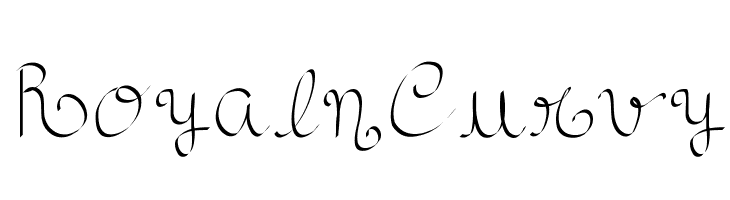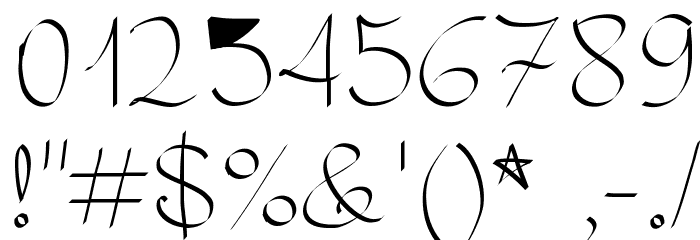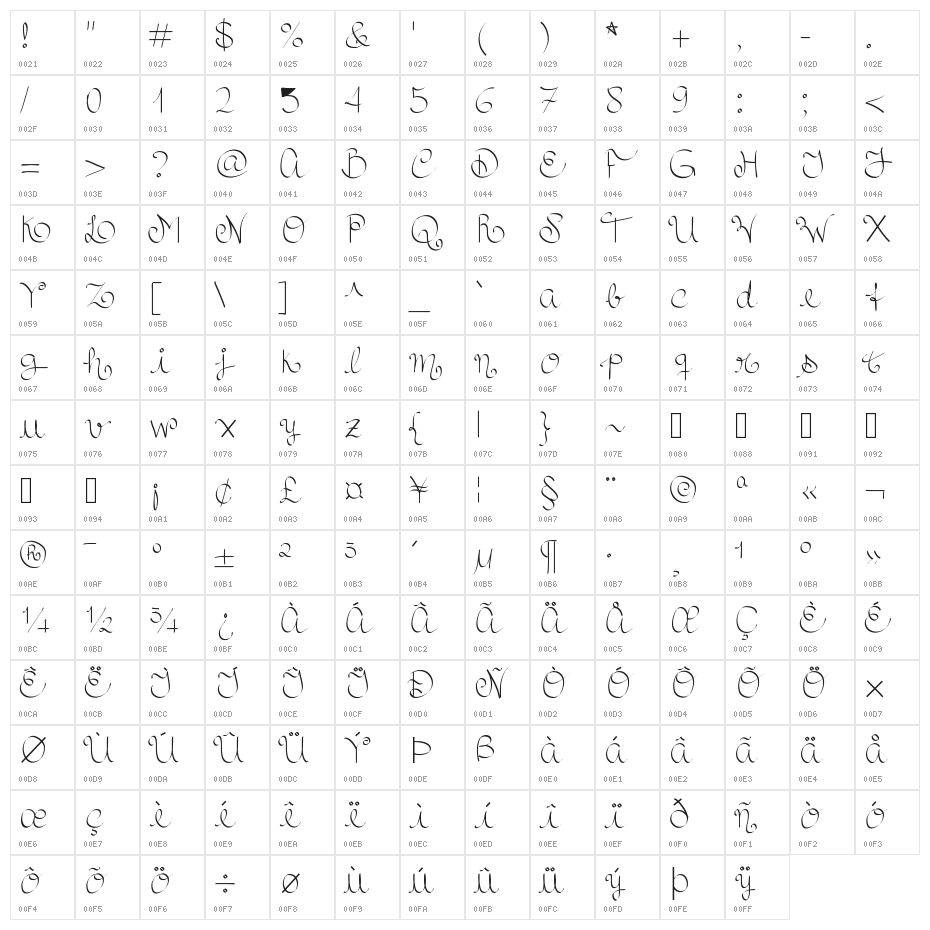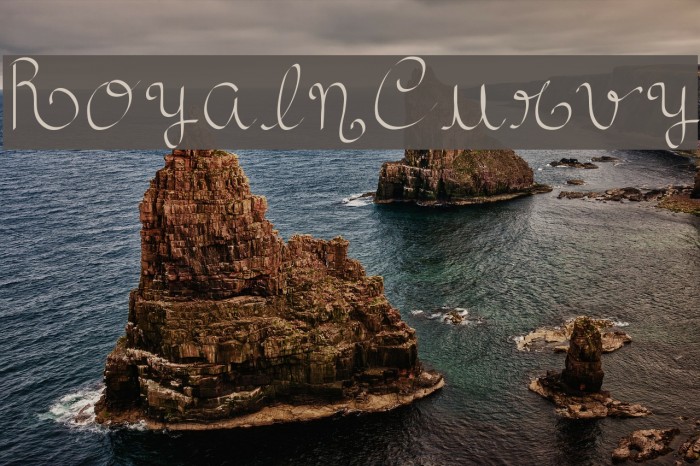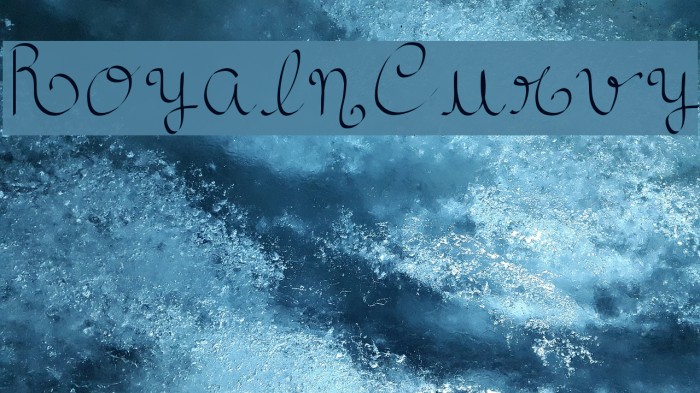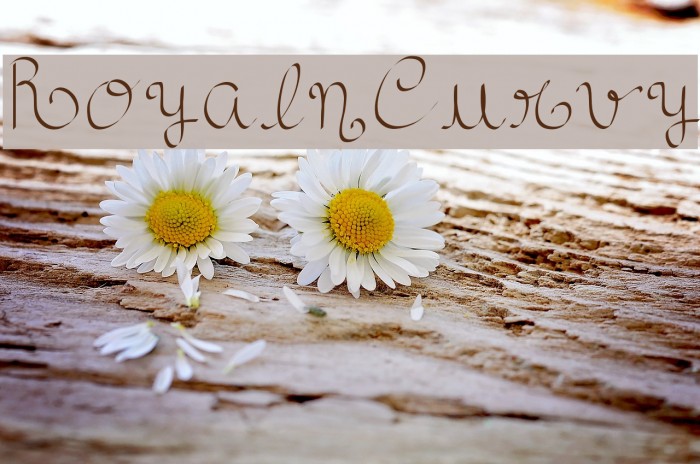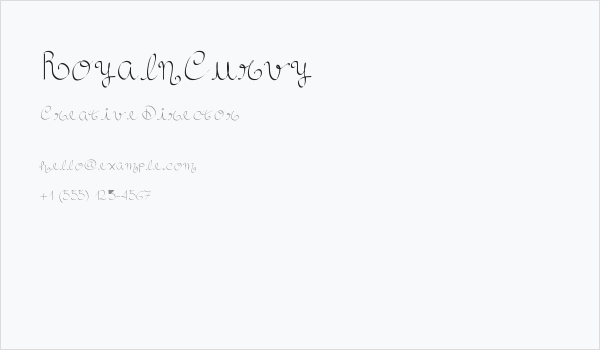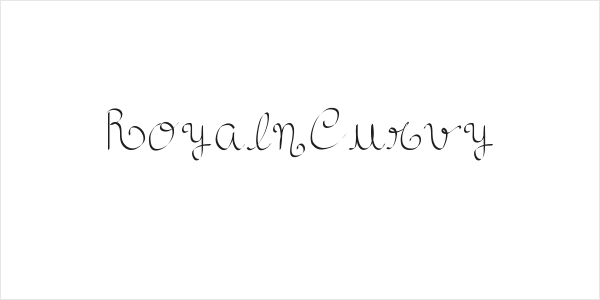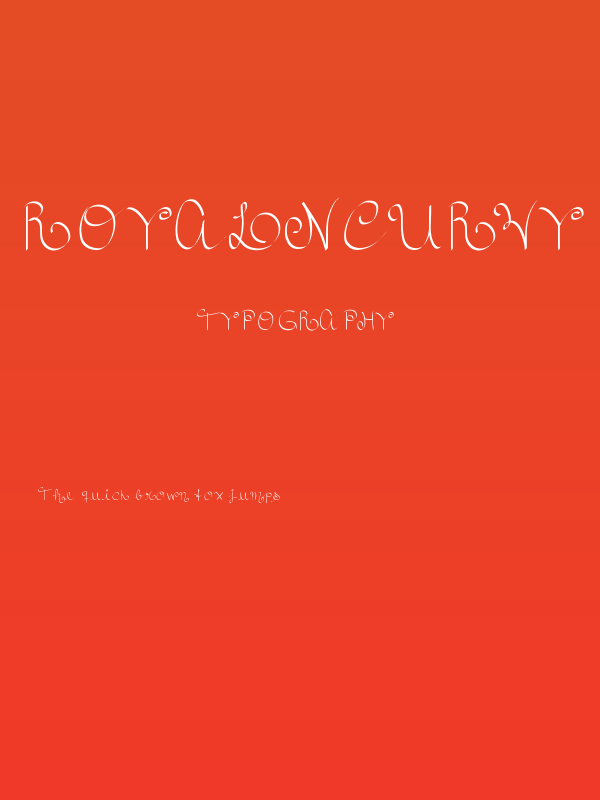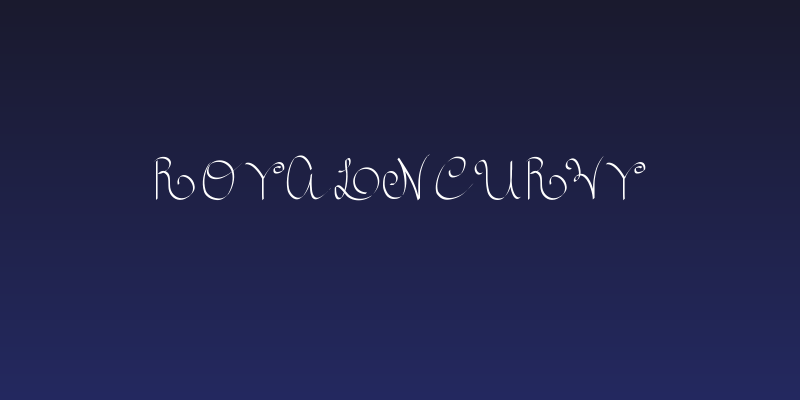
RoyalnCurvy Font
RoyalnCurvy Description
This font features an elegant and whimsical design, characterized by its flowing curves and artistic flair. Each letter is crafted with a sense of movement, giving the impression of a handwritten script. The uppercase letters are particularly ornate, with intricate loops and swirls that add a touch of sophistication. The lowercase letters maintain a consistent style, with smooth transitions and gentle curves. Numbers and special characters are designed to complement the overall aesthetic, ensuring a cohesive look across all text. The font's unique style makes it suitable for creative and decorative purposes, where a touch of elegance and personality is desired.